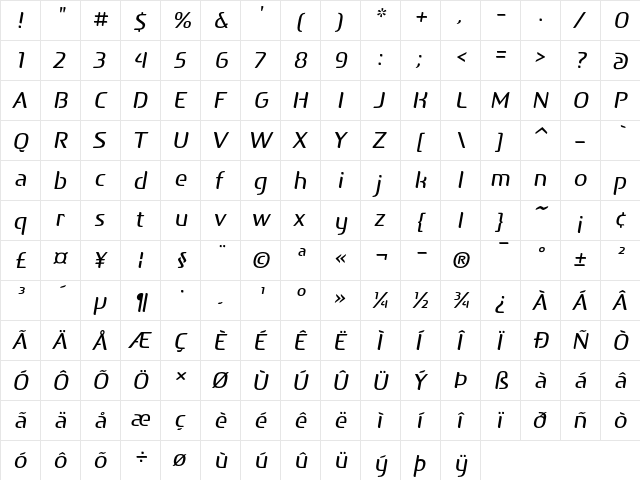
After Headline Light Italic Font Preview
| Designer | Fabio Luiz Haag |
Design Context for After Headline Light Typeface
After Headline Light takes a measured approach to typography — its balanced proportions and neutral character make it a reliable workhorse for both digital and print work. The dynamic lean of this cut emphasises speed and emphasis in any layout. The delicate stroke weight brings airiness and refinement to layouts.
Pro Tip: Use After Headline Light for emphasis, pull quotes, and subheadings where its slanted energy can add rhythm to the layout.